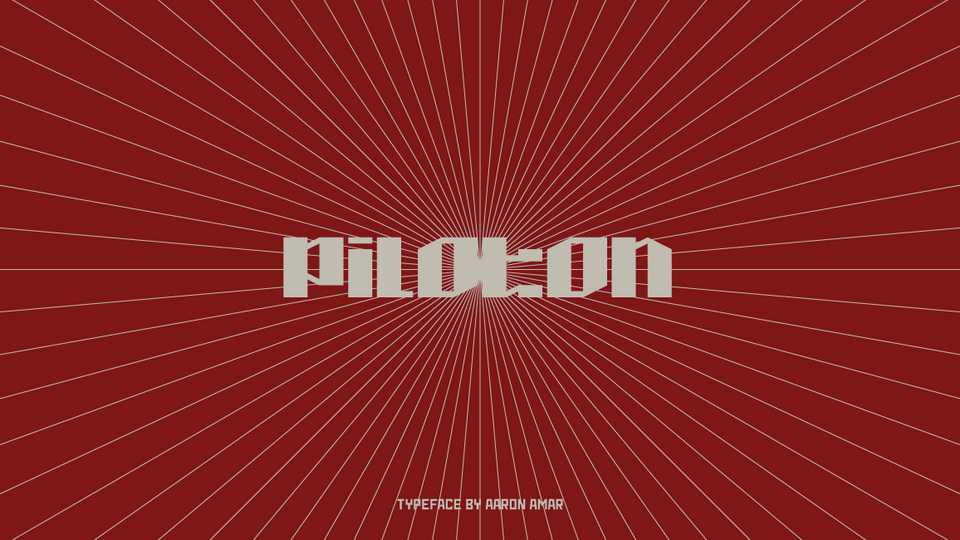
Download Piloton typeface, a creative display font family in two styles with square and sharp forms. Piloton works well for posters, headlines, logo, branding and other display use.
Designer: Aaron Amar